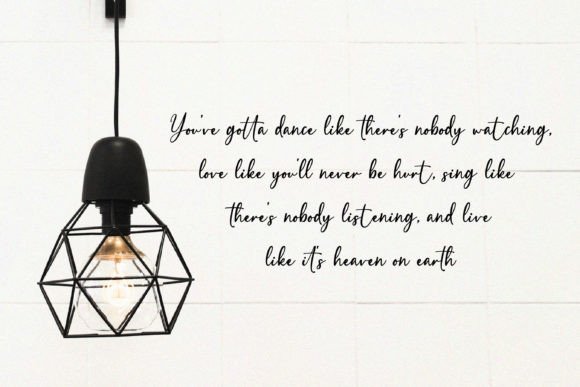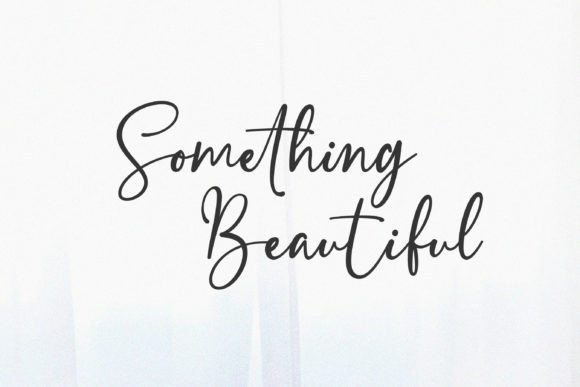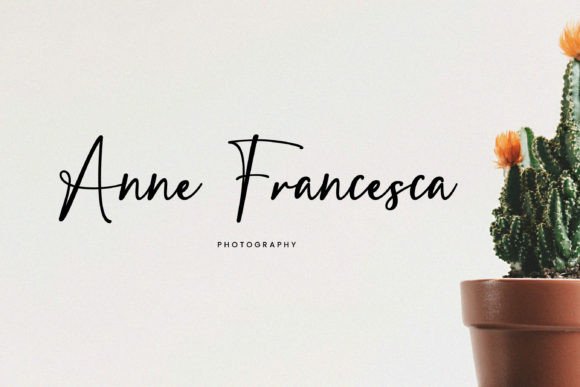
Introducing Amethyst – An Elegant Handwritten Script Font
Indulge in the timeless beauty of Amethyst, an exquisite handwritten script font that exudes elegance and sophistication. With its graceful curves and delicate lines, Amethyst adds a touch of refined charm to any project, from wedding invitations and interior design to luxury branding.
The Beauty of Handwritten Script Fonts
Handwritten script fonts have always been a popular choice among designers and crafters. They add a personal touch to any project, making it stand out from the crowd. Amethyst is no exception. This beautiful font is perfect for those who want to add a touch of elegance and sophistication to their designs.
What Makes Amethyst Special?
Amethyst is more than just a font – it’s an experience. With its delicate lines and graceful curves, it’s perfect for creating beautiful wedding invitations, elegant interior design materials, and sophisticated luxury branding. The font is designed to be versatile, making it suitable for a wide range of projects.
Key Features of Amethyst Font
- Elegant Handwritten Script: Amethyst is a beautifully crafted handwritten script font that exudes elegance and sophistication.
- Delicate Lines and Curves: The font features delicate lines and curves that add a touch of refined charm to any project.
- Versatile: Amethyst is perfect for a wide range of projects, from wedding invitations and interior design to luxury branding.
- Easy to Read: The font is designed to be easy to read, making it perfect for body text and headings.
Amethyst is perfect for designers and crafters who want to add a touch of elegance and sophistication to their projects. Whether you’re creating wedding invitations, interior design materials, or luxury branding, Amethyst is the perfect choice.
Tips for Using Amethyst Font
- Pair with Bold Fonts: Pair Amethyst with bold fonts to create a beautiful contrast and add visual interest to your designs.
- Use for Headings and Body Text: Use Amethyst for both headings and body text to create a cohesive look.
Why Choose Amethyst Font?
There are many reasons why you should choose Amethyst font for your next project. Here are a few:
- Unique and Elegant: Amethyst is a unique and elegant font that will make your designs stand out from the crowd.
- High-Quality: The font is designed to be high-quality, making it perfect for printing and digital use.
In conclusion, Amethyst is a beautiful handwritten script font that exudes elegance and sophistication. With its delicate lines and curves, it’s perfect for adding a touch of refined charm to any project. Whether you’re a designer or crafter, Amethyst is the perfect choice for your next project.